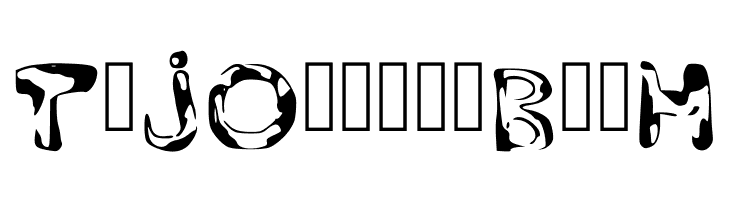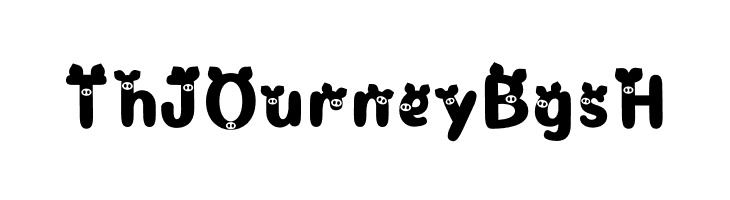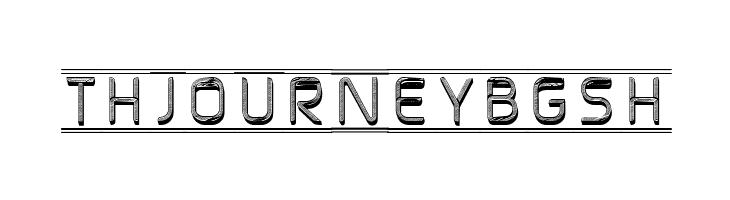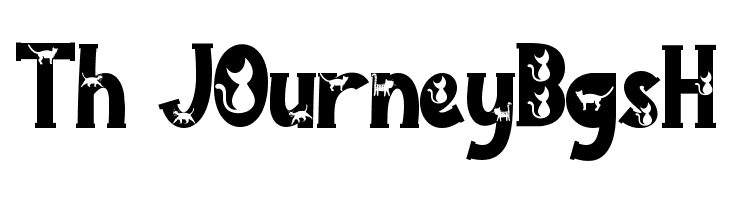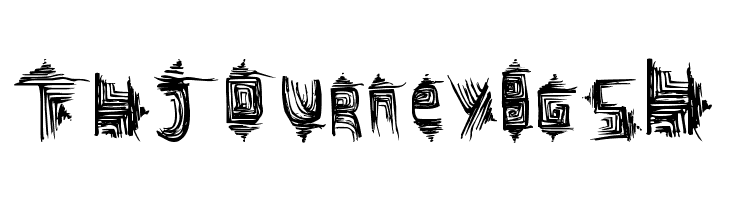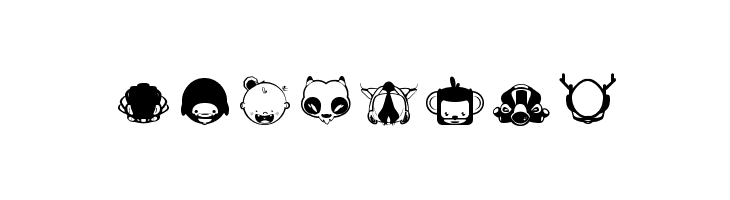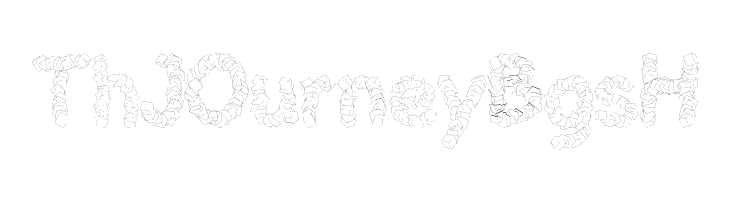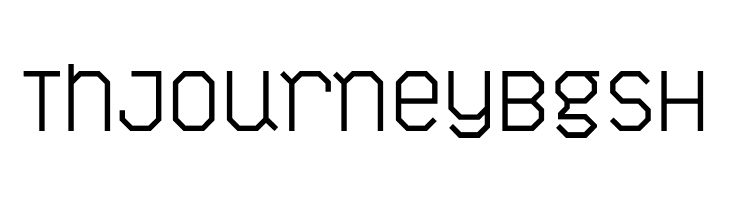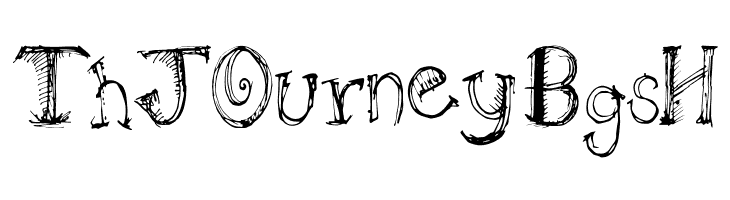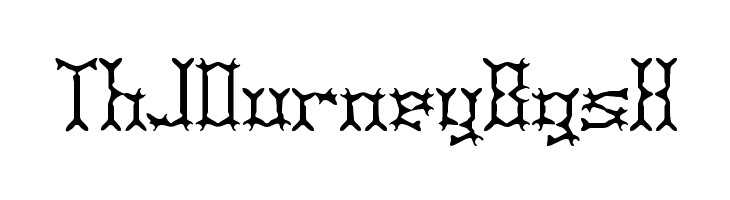
• Pictaves Light
• picto
A chaotic, hand-drawn decorative font with intricate, jagged strokes.
• Pictoserie 6
( Fonts by Maelle.K - Thomas Boucherie )
Cartoonish, decorative font with playful animal and character faces.
• Piggy Demo
( Fonts by Toko Laris Djaja )
A playful, pig-themed decorative font with bold, rounded characters.
• Piggy Regular
( Fonts by yoshifat77 )
A playful, high-contrast decorative font with fluid, ink-like shapes.
• pikia
• Pilot Regular
A geometric, structured font with a modern, technical aesthetic.
• PilotLLJ
( Fonts by auto_sprit )
A decorative, hand-drawn font with a sketch-like, artistic style.
• Pimpaw Cat
( Fonts by Yoga Letter )
A playful decorative font with cat silhouettes integrated into each letter.
• Pincers BRK